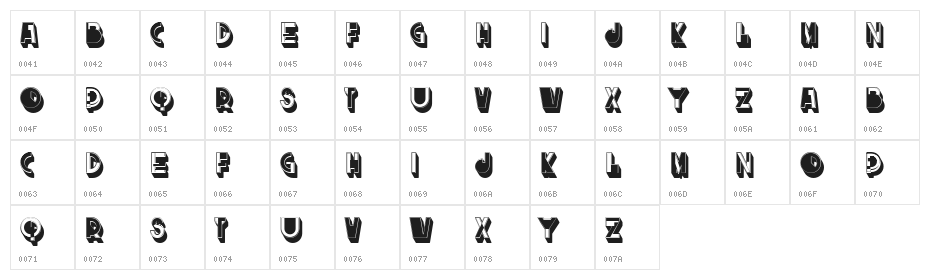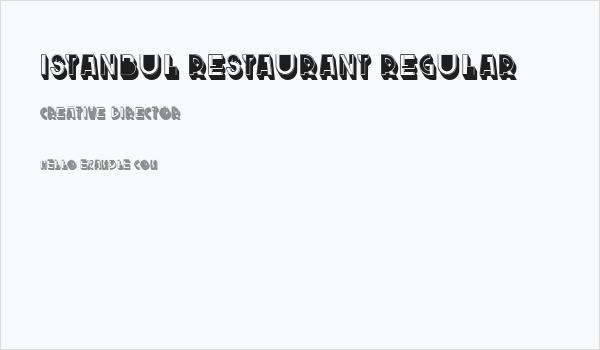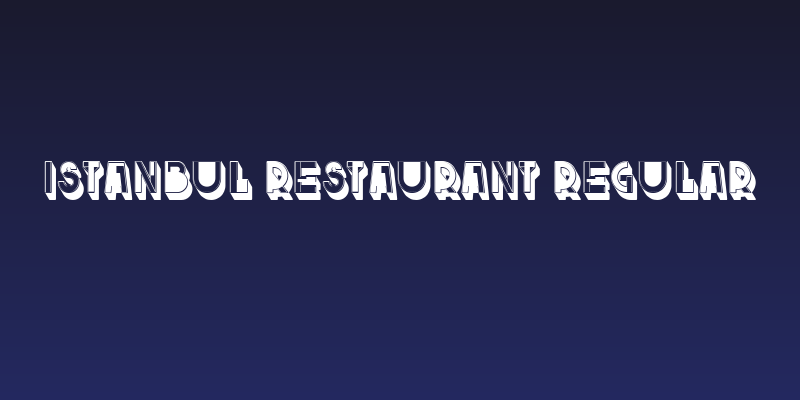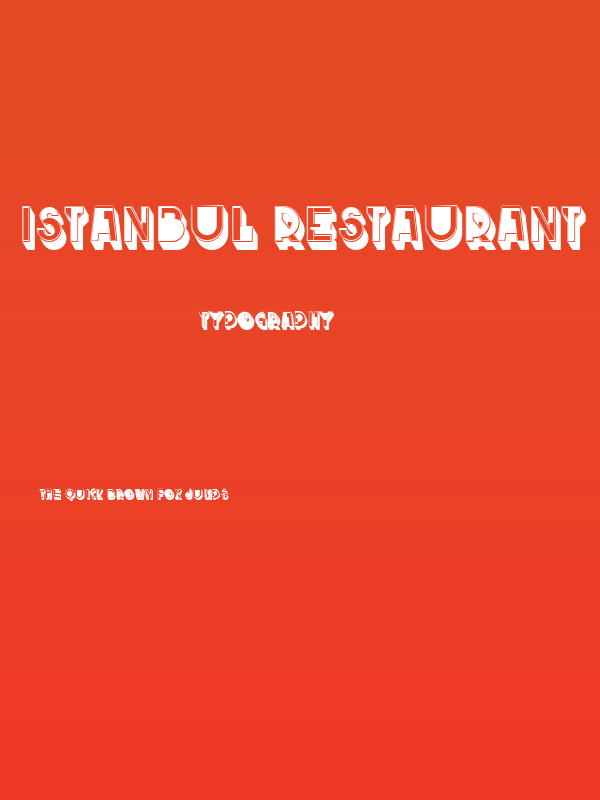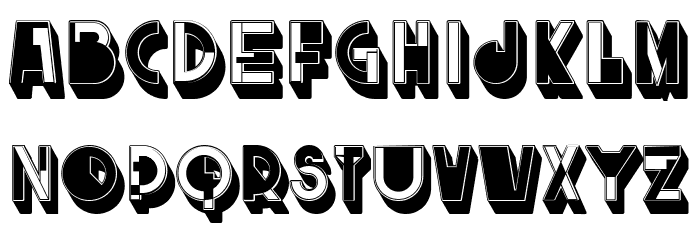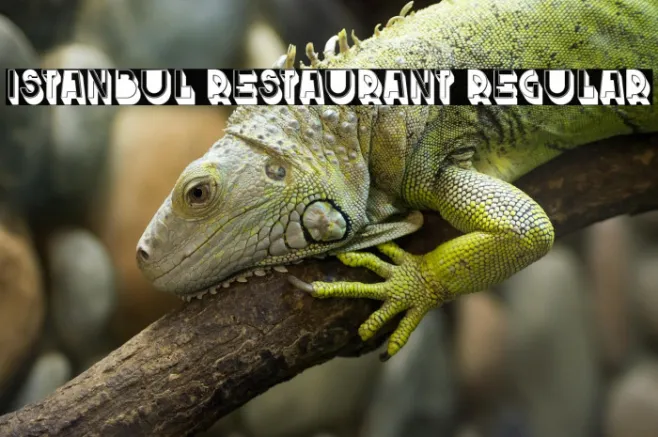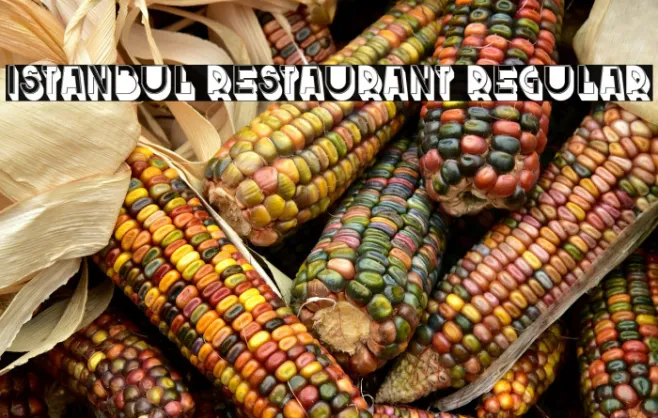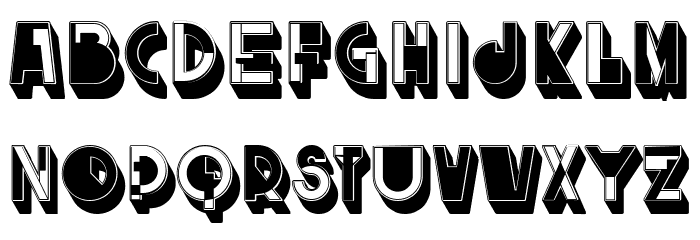
Istanbul Restaurant Regular Font
Istanbul Restaurant Regular Description
This font features a bold, three-dimensional style with a strong presence. The characters are designed with a shadow effect, giving them a striking, layered appearance. The uppercase letters are uniform in height and width, creating a cohesive look across the alphabet. The font's geometric shapes and clean lines contribute to its modern and dynamic aesthetic. Its boldness and depth make it ideal for eye-catching designs that require a strong visual impact.
| Proposed Projects | Perfect for branding, posters, headlines, and any design needing a bold statement. |